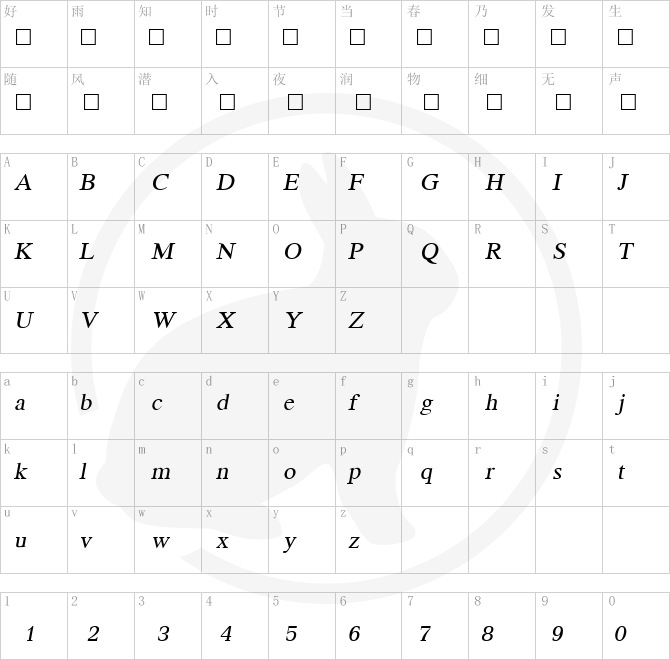
- Font Name:P5 KodchiangUPC
- Subfamily:FontMonger:KodchiangUPC Italic
- Full Name:P5 KodchiangUPC Italic
P5-KodchiangUPC-Italic.ttf is a very beautiful artistic font, P5-KodchiangUPC-Italic.ttf is widely used in the design and printing of various books and pictures,P5-KodchiangUPC-Italic.ttf has a strong visual impact,P5-KodchiangUPC-Italic.ttf is a commonly used font in newspapers, magazines and books, and is used in posters, e-commerce Poster design, store design, logo design, font design and other fields.P5-KodchiangUPC-Italic.